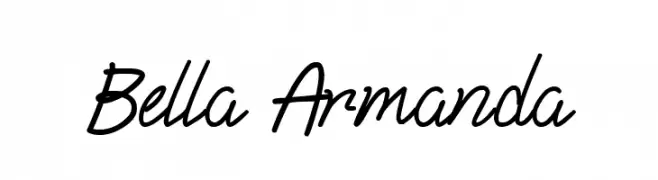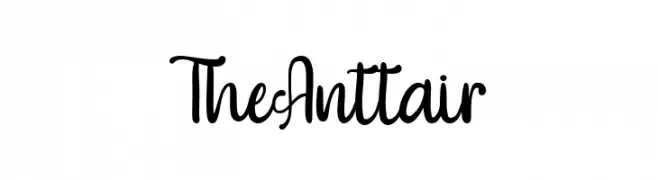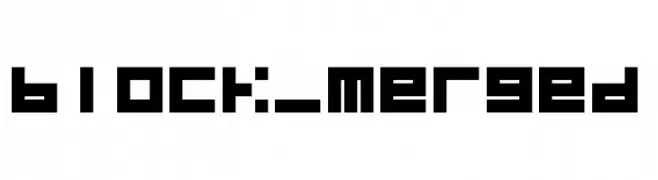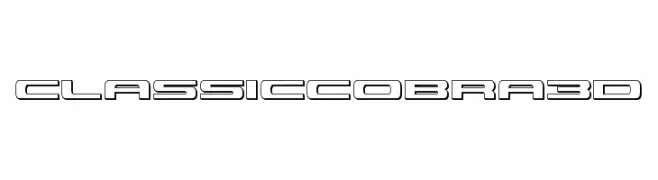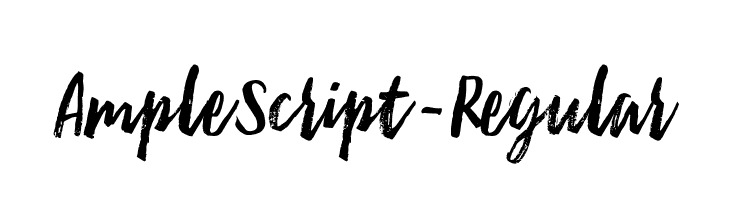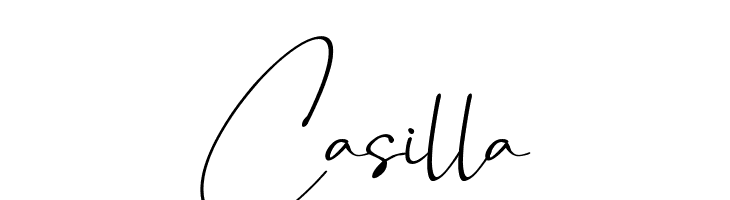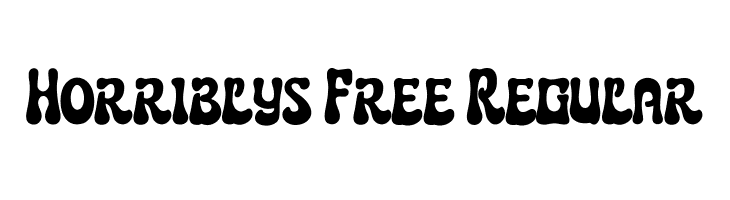
A lively and elegant script font with fluid, connected letterforms.
A playful, handwritten script font with fluid lines and rounded edges.
A bold, futuristic font with sharp angles and geometric design.
A bold, geometric font with a digital, pixelated style.
A decorative font with letters designed to resemble lizards, featuring elaborate and whimsical details.
A playful, handwritten font with smooth, rounded strokes and a casual style.
A bold, geometric font with a 3D outline effect, perfect for modern designs.
A bold, eclectic font with a cut-out, magazine-style appearance.
A dynamic, expressive handwritten font with fluid strokes and elegant slant.
A bold, handwritten-style font with dynamic strokes and playful character.